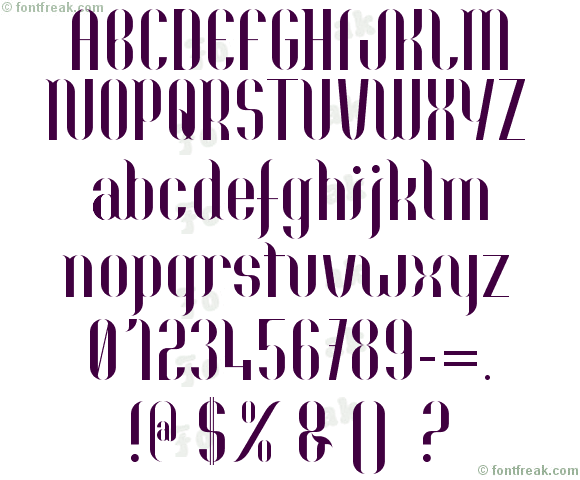
Nolla01
About Nolla01
Nolla01, designed by Benoit Sjoholm in 2008, is a striking display typeface that exemplifies a unique blend of contemporary aesthetics and classic influences. This font falls into the decorative category, characterized by its bold, elongated strokes and distinct geometric forms. The stroke weight is consistent, with a slight contrast that adds to its visual impact. The spacing is well-balanced, ensuring legibility while maintaining an artistic flair, making it suitable for a variety of creative projects.
This font excels in various use cases, such as wedding invitations, where its elegant and refined style can evoke a sense of sophistication. It also works beautifully for movie posters, capturing attention with its dramatic presence and modern appeal. Additionally, restaurant menus can benefit from Nolla01's distinctive design, making dishes stand out in an inviting way. Graphic designers will find it effective for branding projects, as it encapsulates a modern yet timeless feel that resonates well with contemporary audiences. Content creators will appreciate its versatility in digital layouts, enhancing the overall visual experience.
Targeted toward graphic designers, small business owners, and content creators, Nolla01 is perfect for those seeking a font that combines artistry with functionality. Its freeware license means that it is accessible to a wide range of users, allowing creativity to flourish without limitation.
What sets Nolla01 apart is its ability to convey both elegance and modernity, making it a standout choice for projects that demand attention and sophistication. The Nolla01 font free download offers an excellent opportunity for creatives to experiment with this unique typeface, ensuring that their designs make a lasting impression.